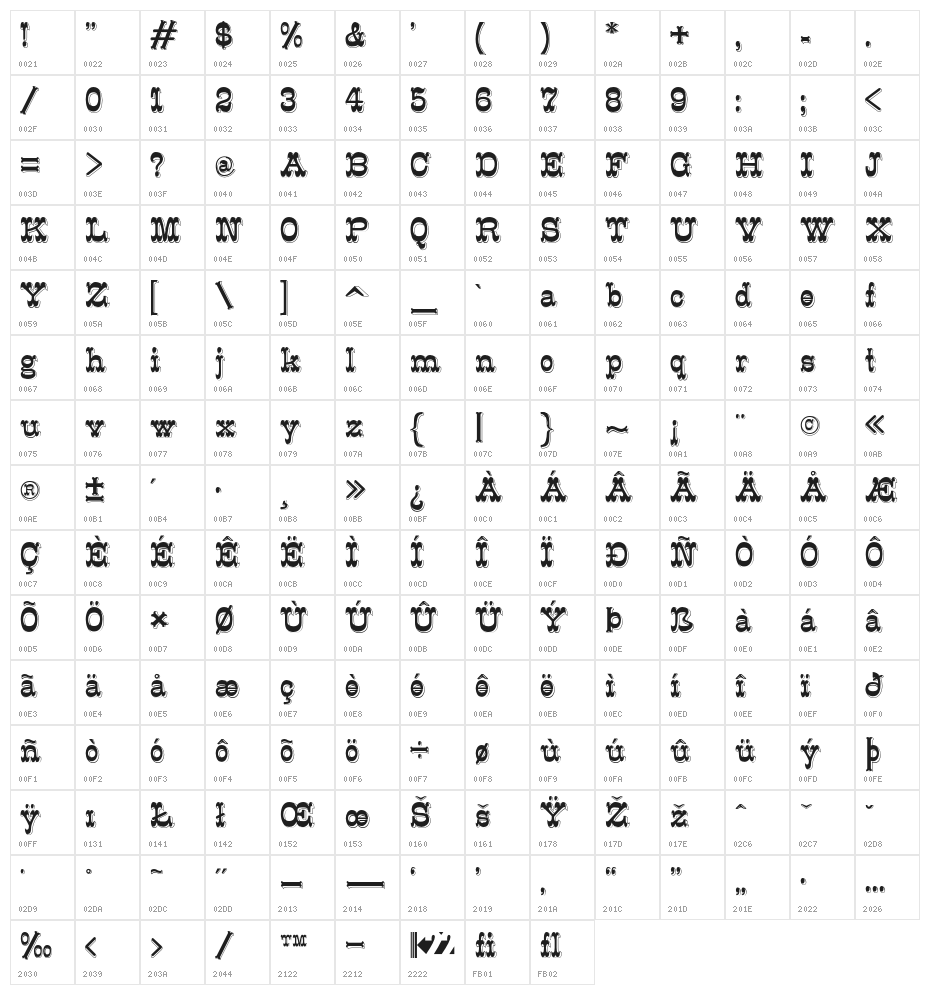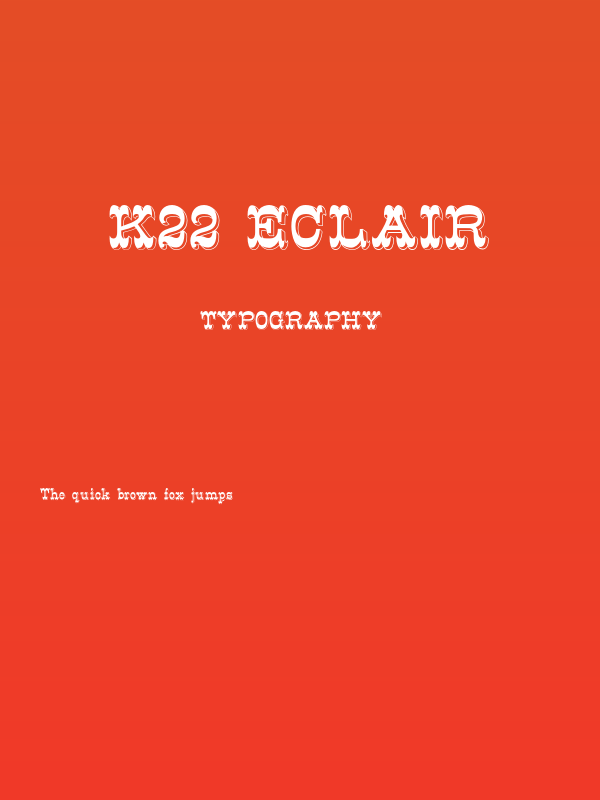
K22 Eclair Font
| Progetti proposti | Ideal for posters, event invitations, branding materials, and any design project that seeks to capture attention with a unique and artistic flair. |